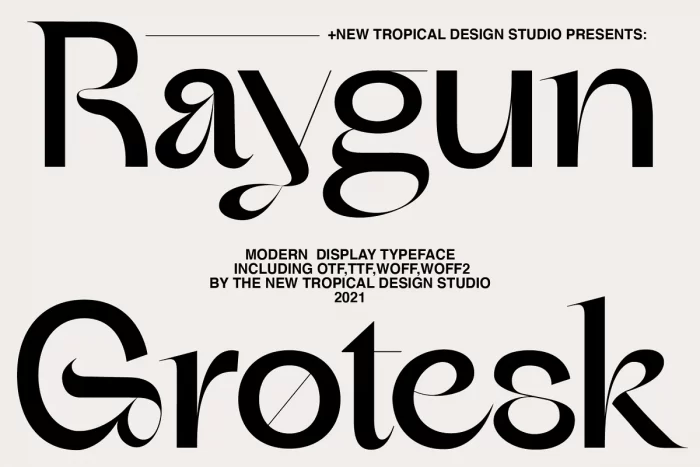
Raygun is a modern serif font take on a Grotesk style typeface. It features a unique design that combines the characteristics of a modern Grotesk with added contrast and selective serifs. This fusion results in a distinctive and eye-catching font that is perfect for headlines, titles, and other display typography.